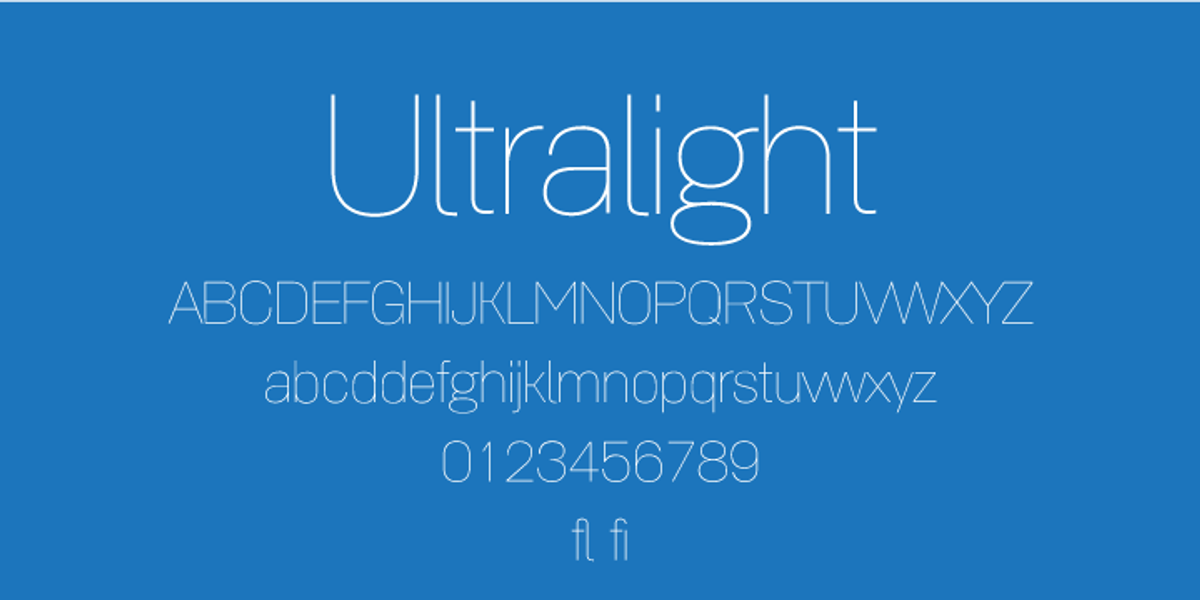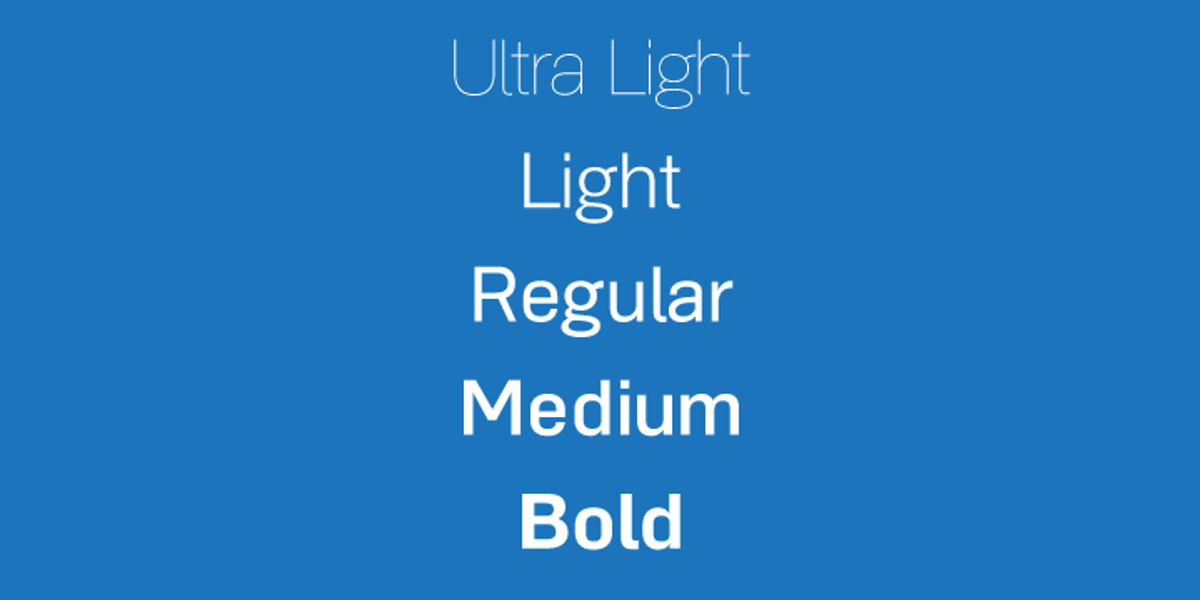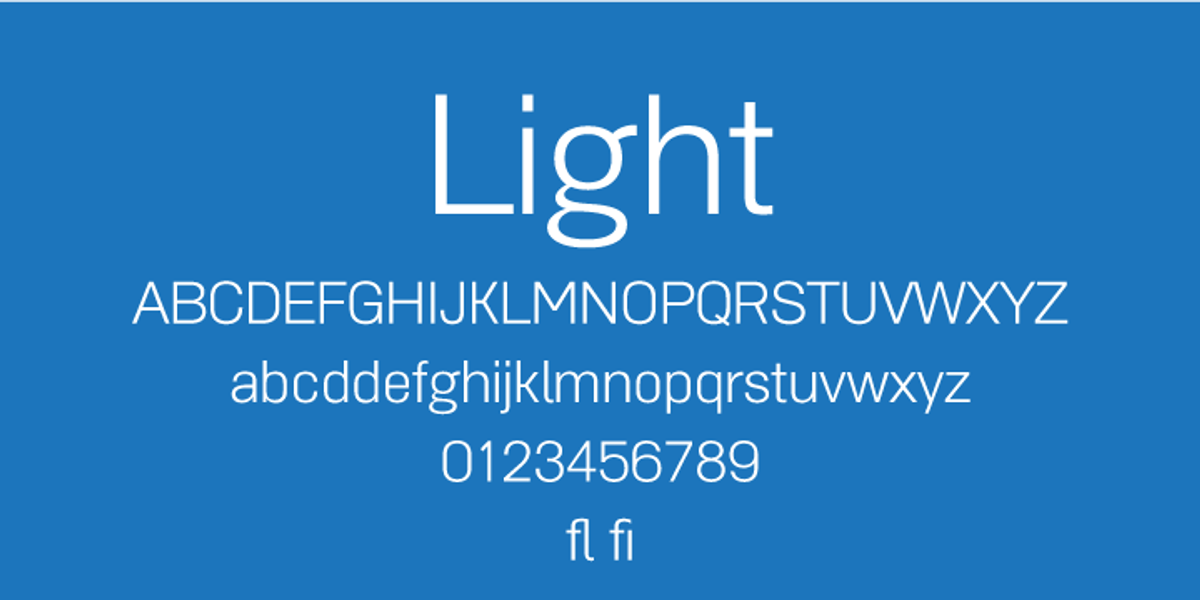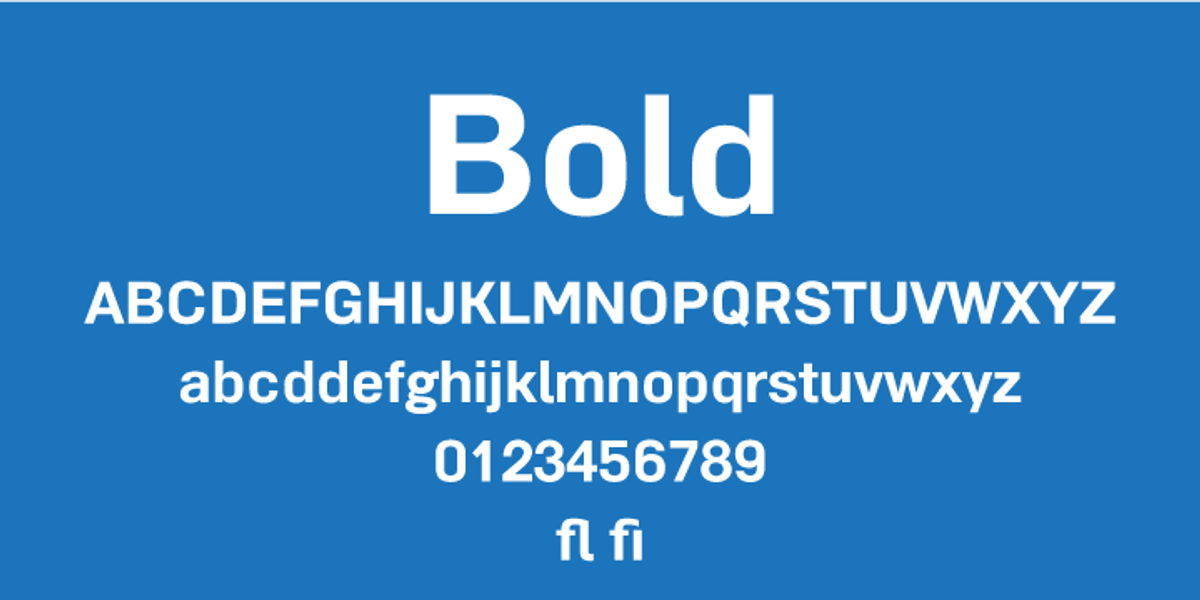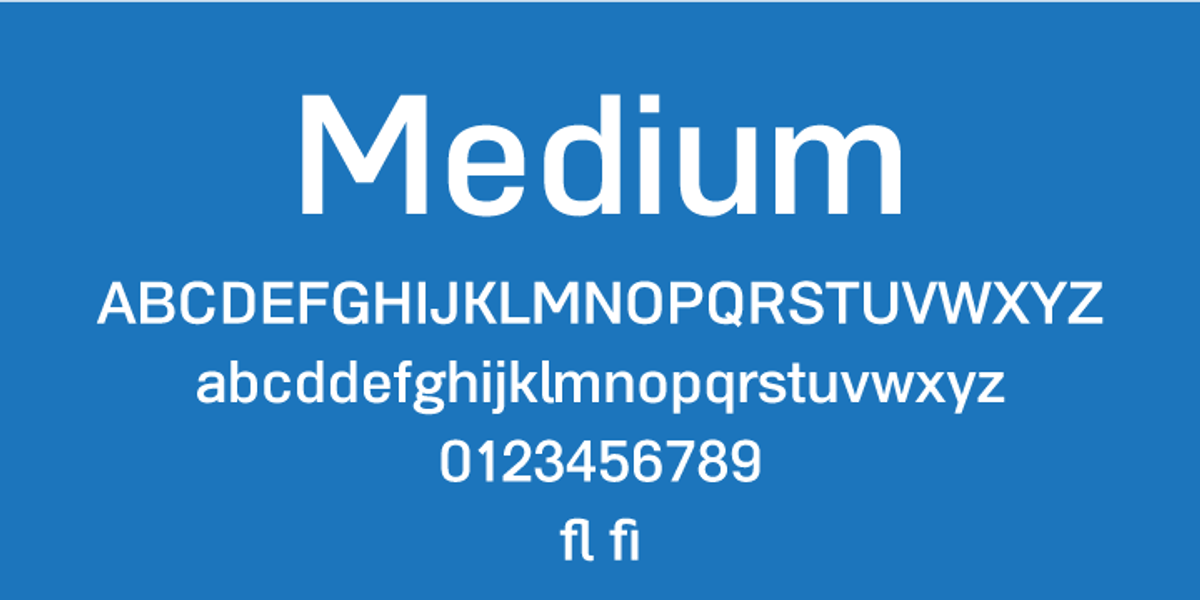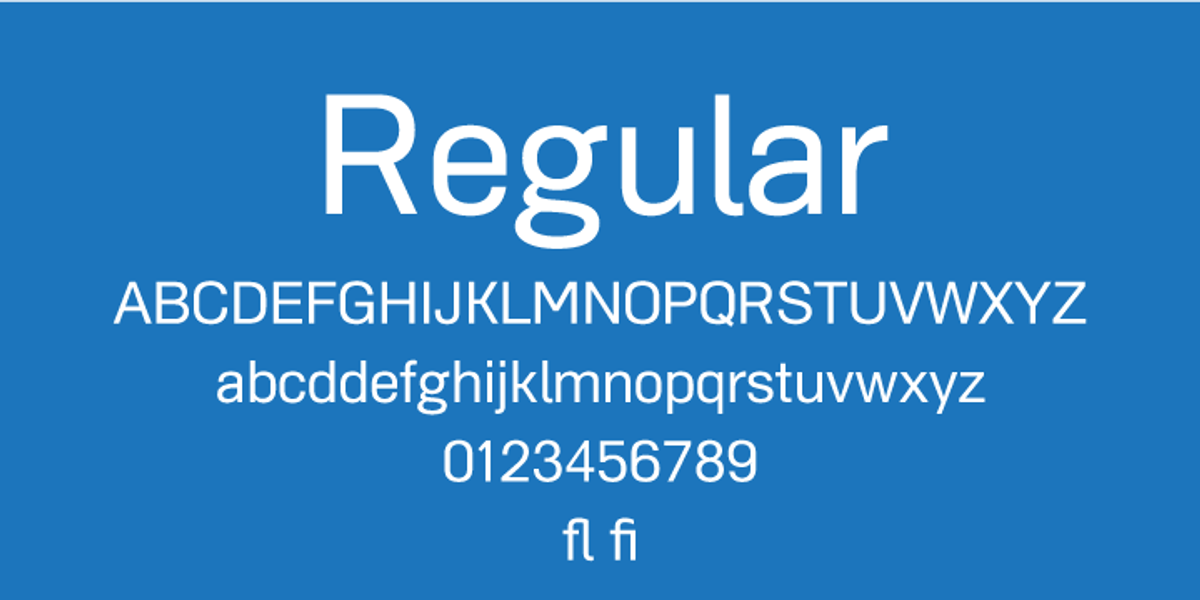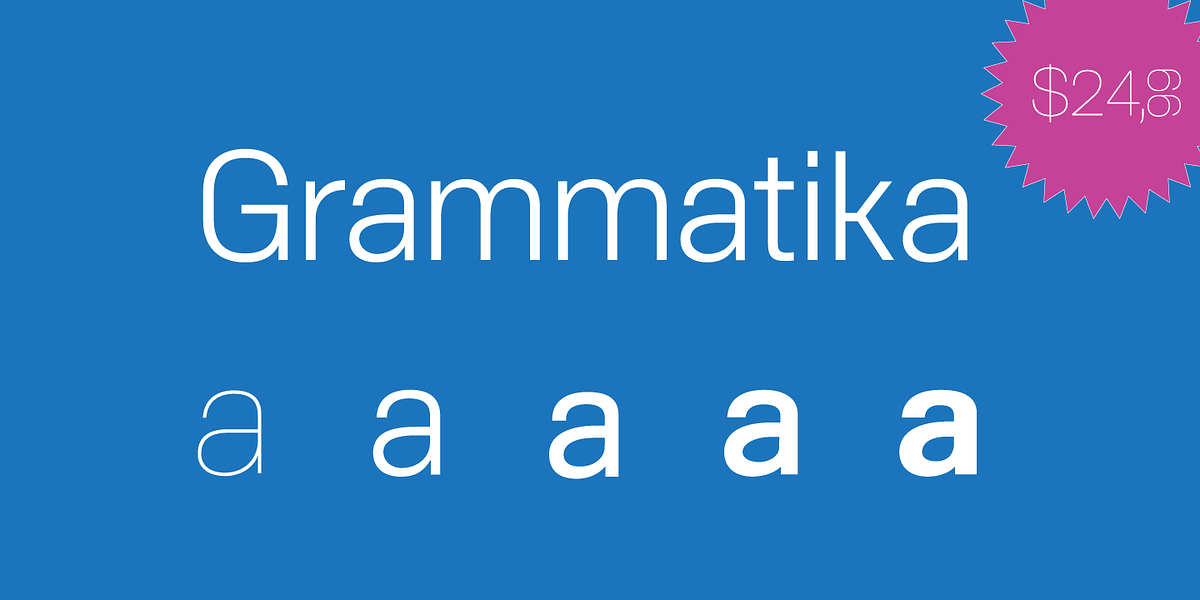
Grammatika
Grammatica is a geometric sans-serif typeface inspired by Helvetica and DIN. Its sturdy construction, low contrast, and high legibility make it suitable for both display and text applications. The font family includes five weights: UltraLight, Light, Regular, Medium, and Bold. It's recommended for a variety of uses, including newspapers, magazines, books, websites, and corporate branding.